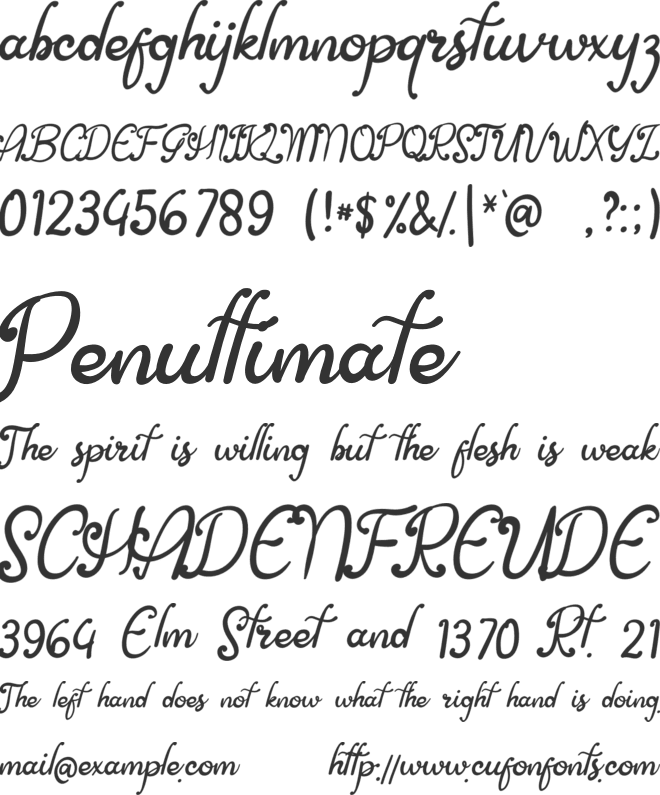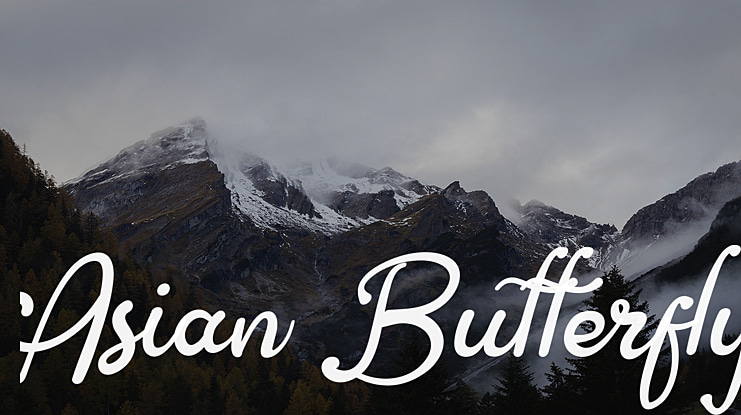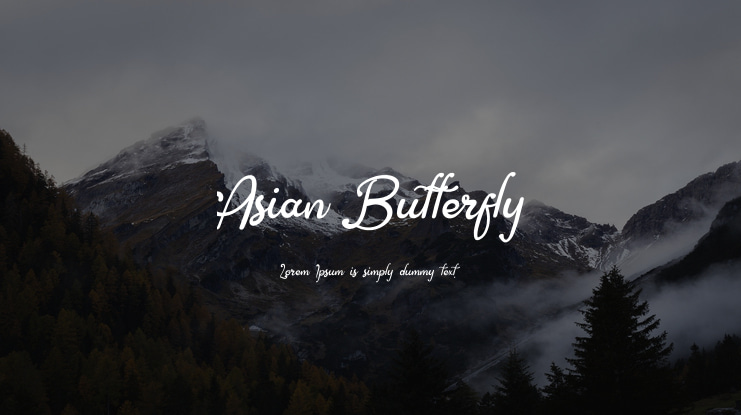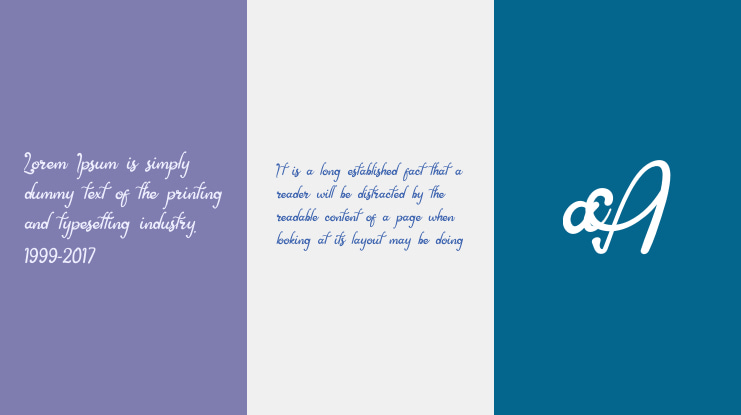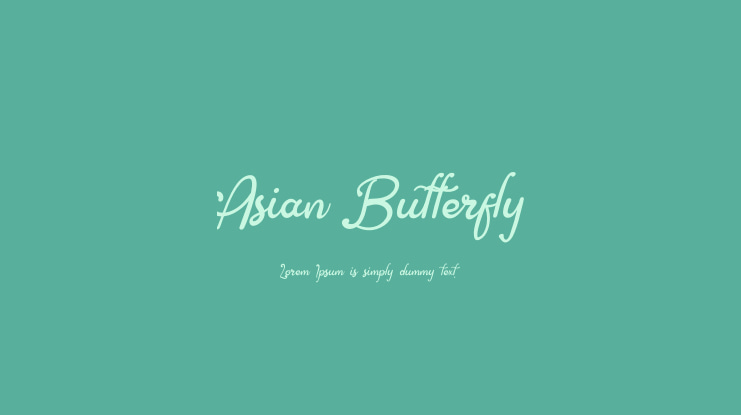
Asian Butterfly Font
Asian Butterfly handwritten Font is a great. It maintains its classy calligraphic influences while feeling contemporary and fresh. This versatility will appeal to a wide range of crafty ideas, from letterheads and titles to stationery.